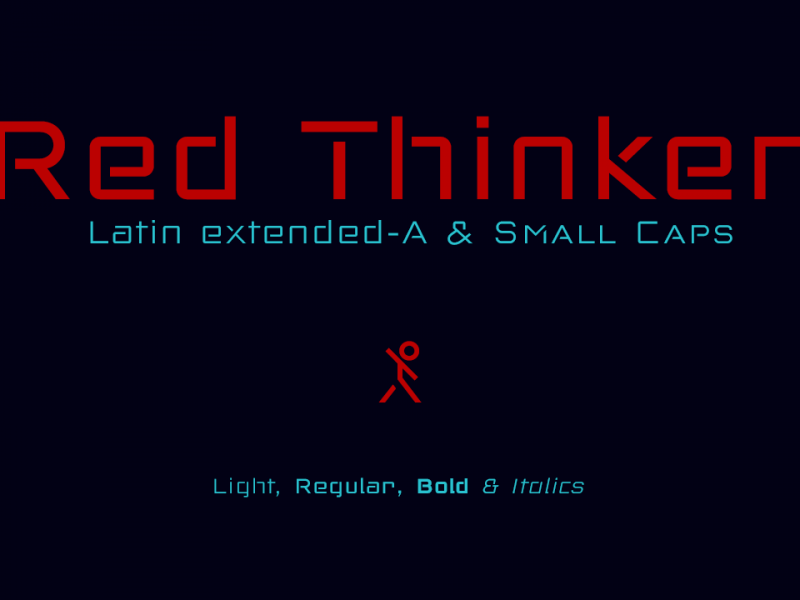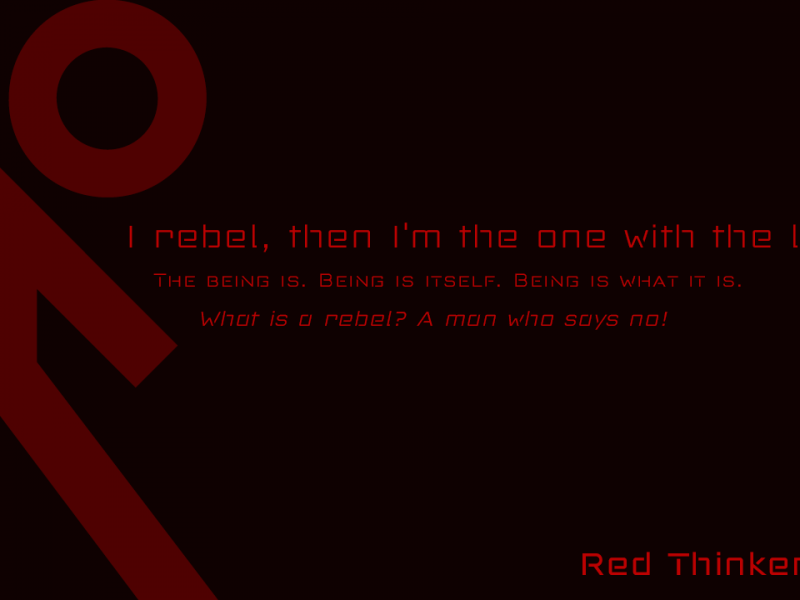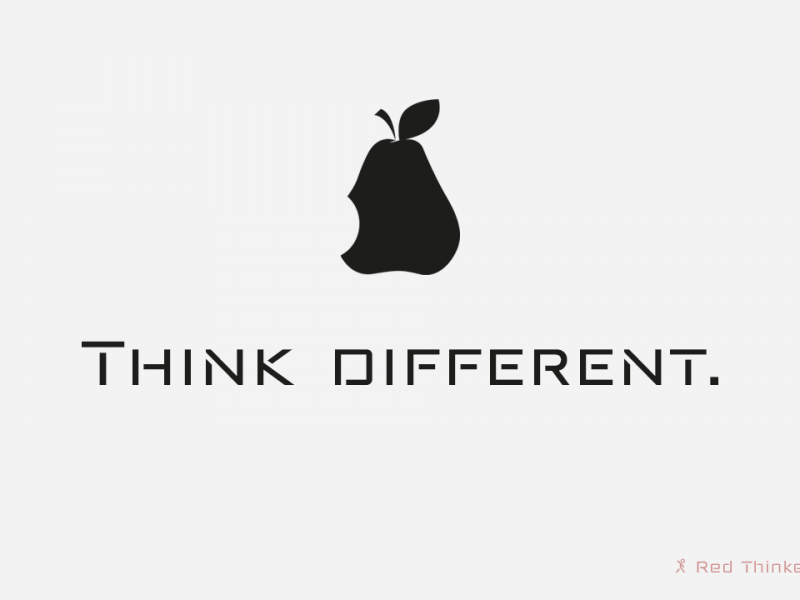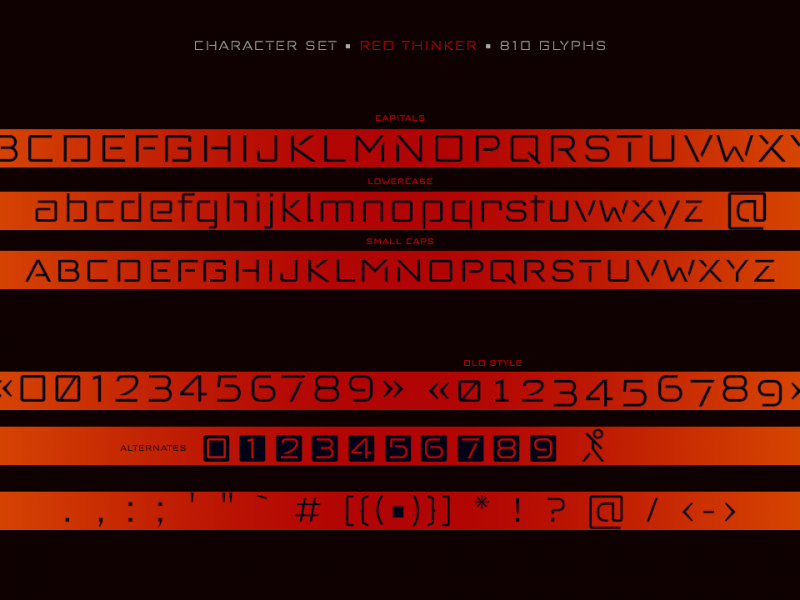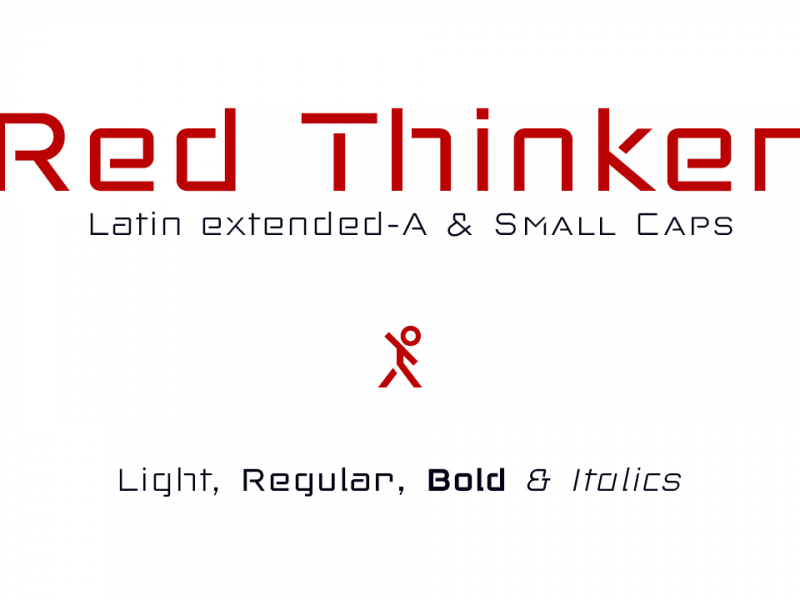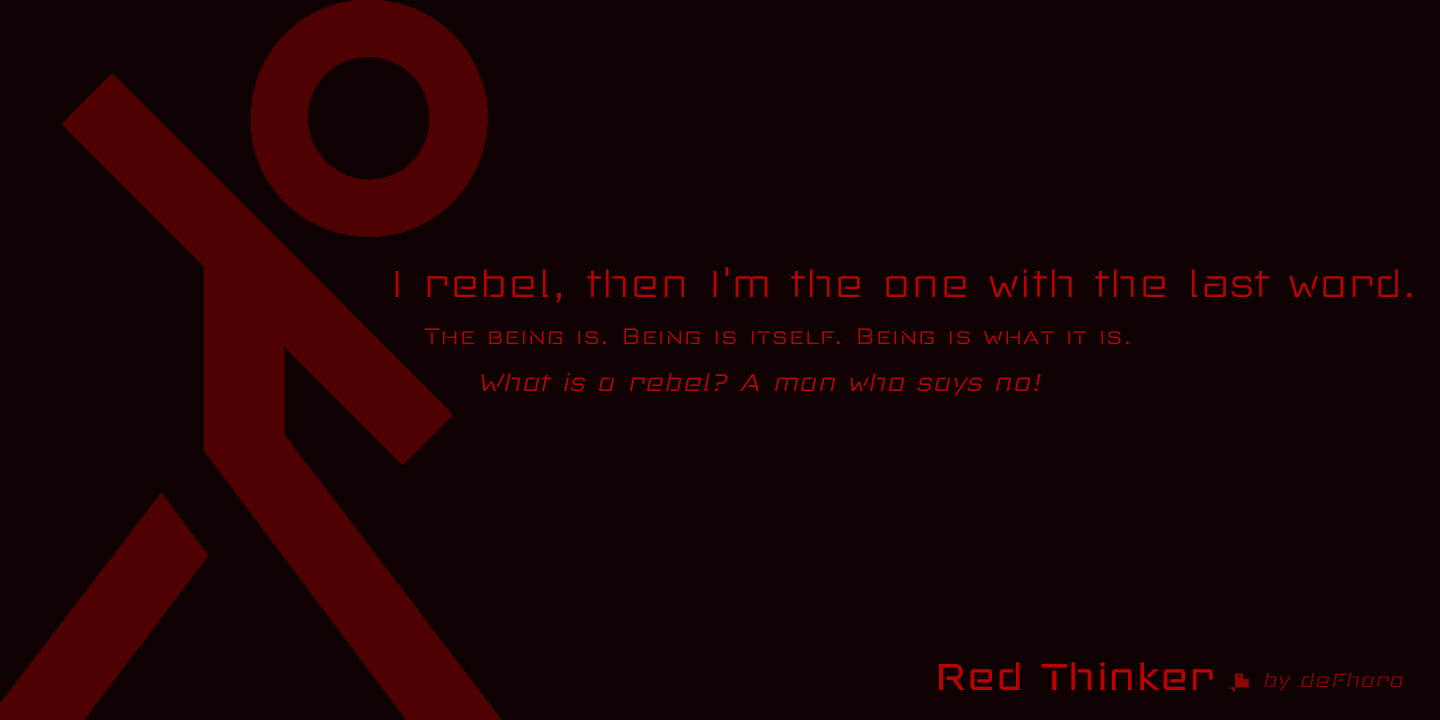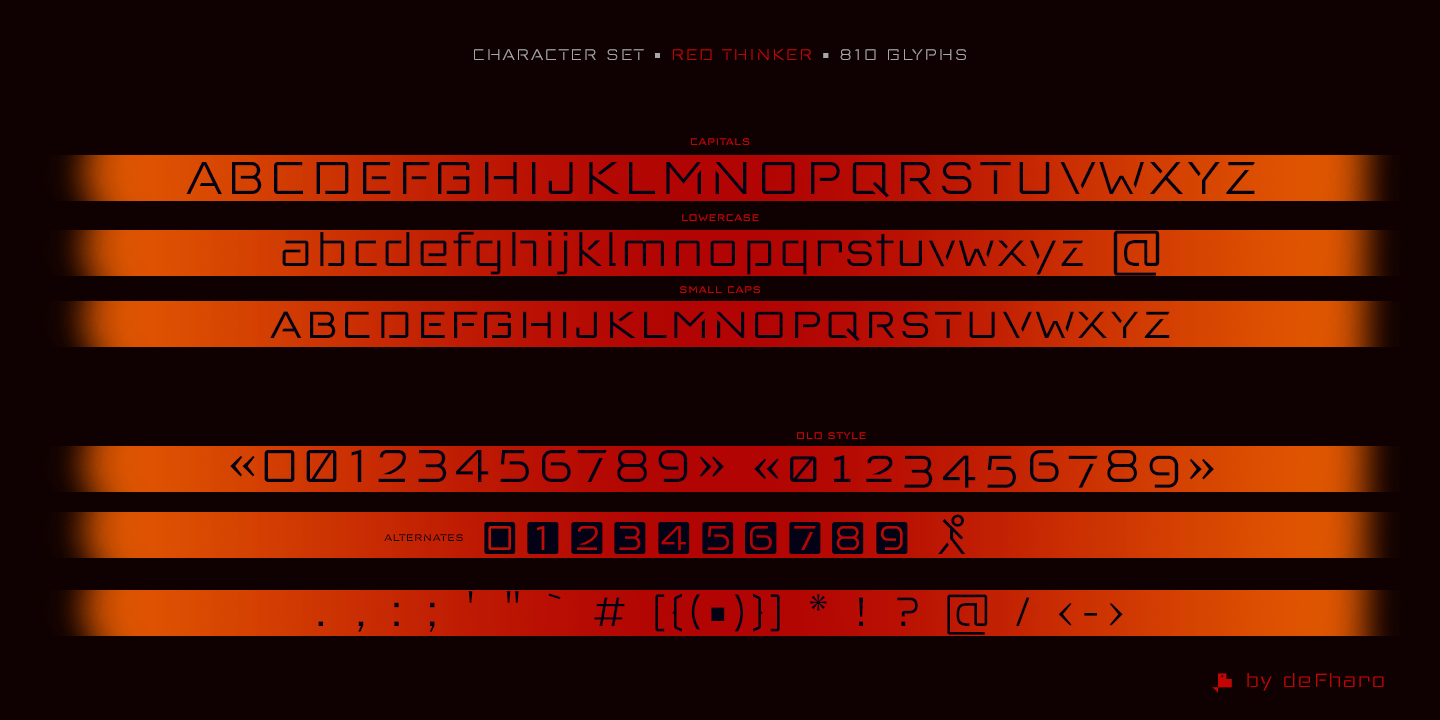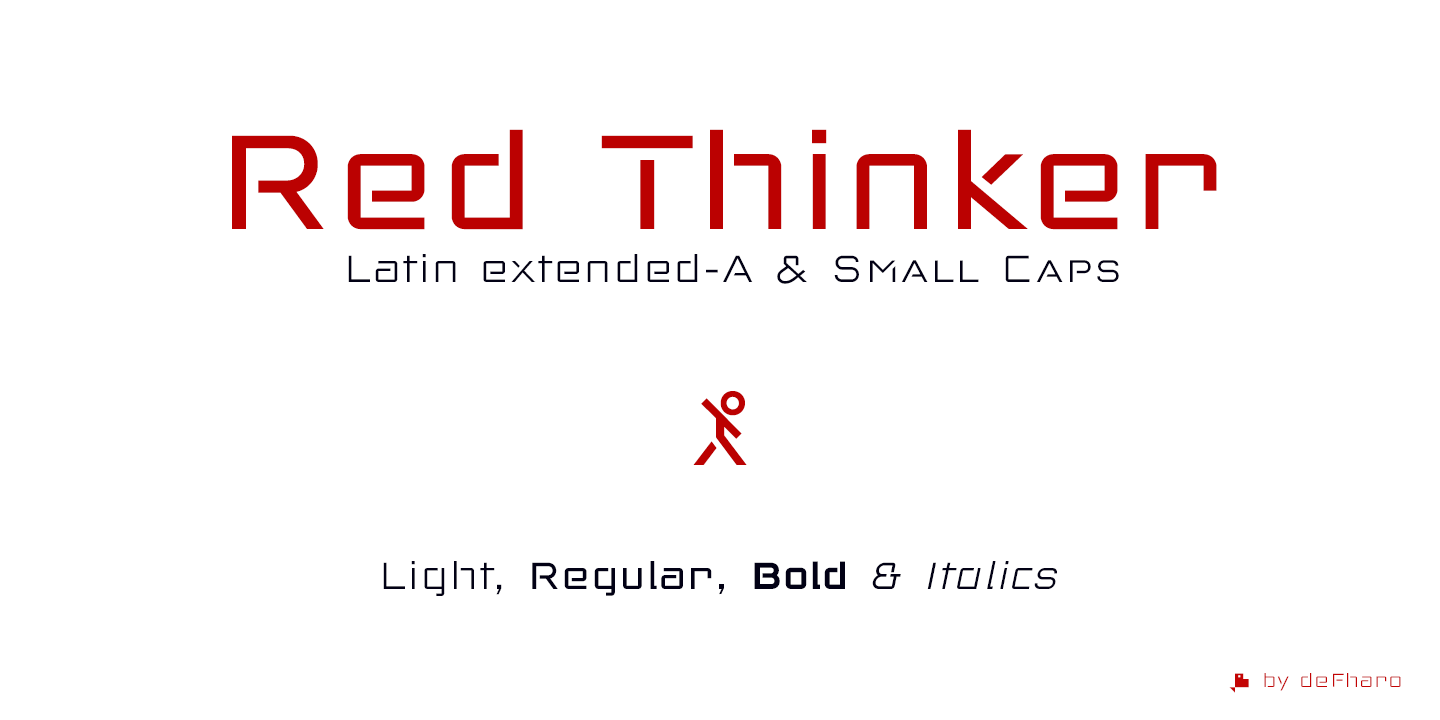
Red Thinker Font
Red Thinker is a sans serif typeface that includes Small Caps, is of square proportion and fuses soft curves in the outer vertices with straight lines inside the characters, a semi-stencil design that gives it a technological aspect and future fiction.
– Red Thinker is the heir by right of the geometrical fonts of the early twentieth century inspired by the Bauhaus school and is specially designed for use in any size for both screen and printing.